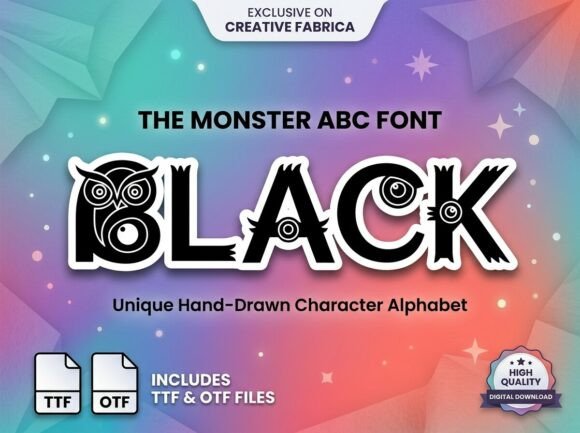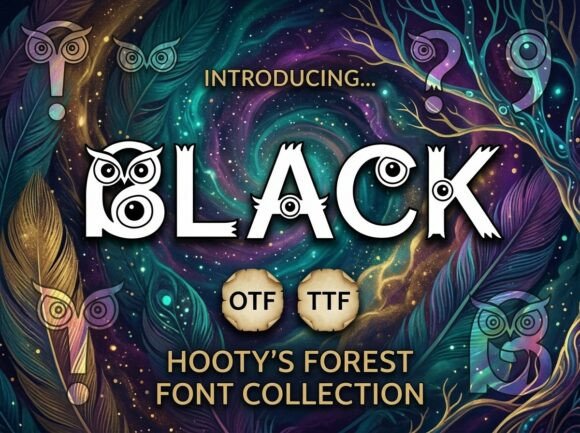
Unleash Your Imagination with Black Font: A Monstrously Creative Display Typeface
Are you a designer or crafter looking for a unique and playful font to bring your creative projects to life? Look no further than Black Font, a monstrously creative display typeface that captures the essence of a “spooky-and-spirited” soul. With its massive, hand-drawn letterforms and rhythmic “monster” features, Black Font is the perfect choice for a variety of design applications, from independent toy shop identities to boutique Halloween event promotions.
What Makes Black Font So Special?
Black Font is not just any ordinary font. Its unique design features massive, hand-drawn letterforms that are characterized by rhythmic “monster” features, including staring eyeballs, tufted fur, and owl-like silhouettes. These features bridge the gap between whimsical children’s book illustrations and modern playful branding, making Black Font a versatile and eye-catching choice for designers and crafters.
One of the standout features of Black Font is its heavy structural weight, which gives it a bold and playful personality. The font’s mischievous and spirited design makes it perfect for projects that require a touch of whimsy and fun. Whether you’re designing a logo for a children’s apparel label or creating a social media header for a boutique Halloween event, Black Font is sure to make a statement.
Black Font is a premier choice for a variety of design applications, including:
- Independent toy shop identities: Black Font’s playful and whimsical design makes it perfect for toy shops that want to stand out from the crowd.
- Boutique Halloween event promotions: The font’s spooky-and-spirited soul makes it a great choice for Halloween events and promotions.
- Children’s apparel labels: Black Font’s bold and playful design makes it perfect for children’s apparel labels that want to make a statement.
- High-impact social media headers: The font’s heavy structural weight and mischievous personality make it perfect for social media headers that need to grab attention.
Why Designers and Crafters Love Black Font
Designers and crafters love Black Font for its unique and playful design. The font’s monstrously creative features make it a standout choice for projects that require a touch of whimsy and fun. Here are just a few reasons why designers and crafters love Black Font:
- Unique design: Black Font’s unique design features make it a one-of-a-kind choice for designers and crafters.
- Versatility: The font’s versatility makes it perfect for a variety of design applications, from children’s apparel labels to boutique Halloween event promotions.
- Easy to use: Black Font is easy to use and can be easily integrated into a variety of design projects.
- High-quality: The font’s high-quality design ensures that it will look great in any design project.
Tips for Using Black Font in Your Design Projects
Here are a few tips for using Black Font in your design projects:
- Use it sparingly: Black Font is a bold and playful font, so use it sparingly to make a statement.
- Pair it with other fonts: Black Font pairs well with other fonts, so don’t be afraid to experiment with different font combinations.
- Experiment with colors: Black Font looks great in a variety of colors, so experiment with different colors to find the perfect look for your design project.
Black Font is a monstrously creative display typeface that is perfect for designers and crafters who want to add a touch of whimsy and fun to their design projects. With its unique design features, versatility, and high-quality design, Black Font is a premier choice for a variety of design applications. Whether you’re designing a logo for a children’s apparel label or creating a social media header for a boutique Halloween event, Black Font is sure to make a statement.